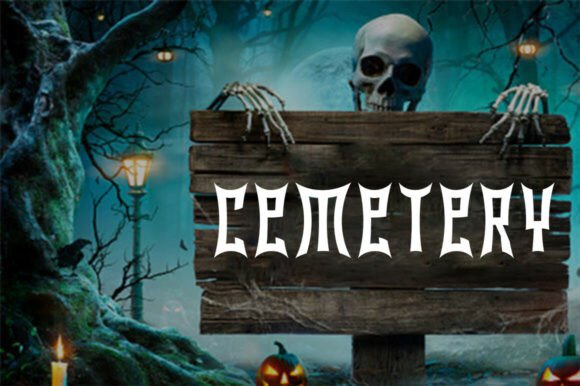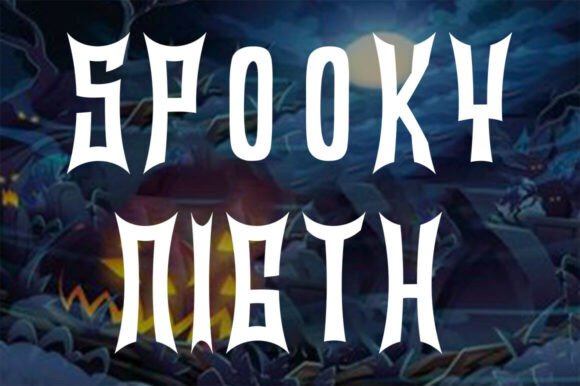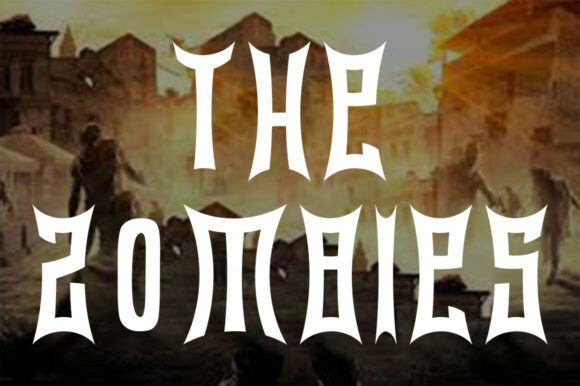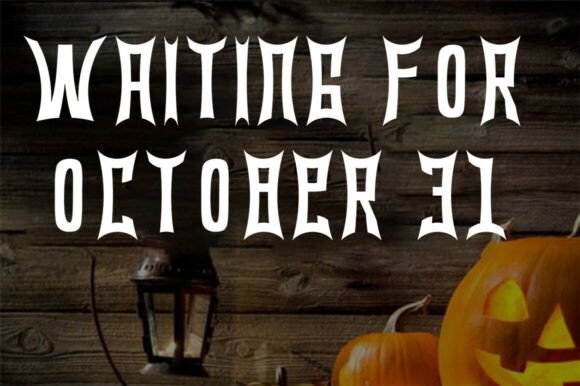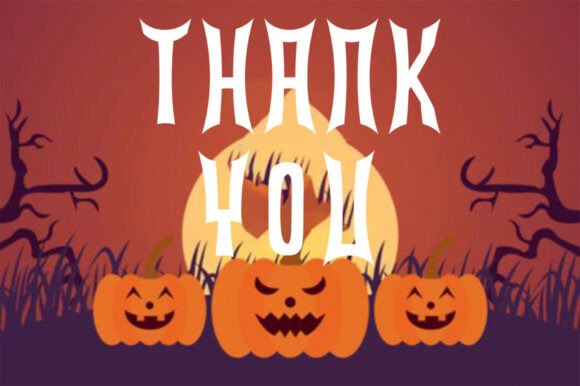
Get Ready for a Spooky Season with the Halloween Excitement Font
You know that feeling when you’re browsing through design inspiration boards, and you stumble upon the perfect font to match your next creative project? For many designers, that moment is especially magical during the Halloween season. The air is crisp, the pumpkins are carved, and the spooky atmosphere is in full swing. That’s when you need a font that can bring your designs to life and capture the essence of the season – enter the Halloween Excitement Font.
This bold, spiky, and dramatic display font is designed to bring the thrill of Halloween to your seasonal creations. With its sharp serifs and eerie handwritten style, it’s the perfect choice for designers who want to add a touch of spooky sophistication to their designs. Whether you’re creating posters, party invites, or haunted house signs, the Halloween Excitement Font is sure to stand out in any creepy setting.
Halloween Excitement Font Key Features
- Font Family: A unique, hand-drawn font designed to evoke the spirit of Halloween.
- Unique Characteristics: Features intricate, hand-crafted details and a bold, playful feel, making it perfect for Halloween-themed designs, invitations, and decorations.
Halloween Excitement Font Review
First off, I want to say that this font is a lot of fun to use. The playful, spooky vibe it brings to any design project is infectious. ✨ I love the creative and whimsical feel it gives to text, making it perfect for Halloween-themed designs, party invitations, or even spooky social media posts. The font’s bold and eye-catching style is sure to grab attention and set the tone for a fun and exciting experience.
Now, let’s talk about the limitations. ⚠️ While the font is great for a specific niche, it may not be the best choice for more formal or professional projects. The playful style may come across as too casual or immature for certain audiences. Additionally, the font may not be as versatile as some other options, as it’s specifically designed for Halloween-themed projects.
- Playful and whimsical style
- Perfect for Halloween-themed designs and projects
- Eye-catching and bold
- Fun and creative vibe
- May not be suitable for formal or professional projects
- May come across as too casual or immature for certain audiences
- Not as versatile as other font options
Halloween Excitement Font: A Practical Application Guide
For maximum impact, use the Halloween Excitement Font in bold or italics, and combine it with other spooky graphics and effects.
Experiment with different font sizes and colors to create a dramatic and attention-grabbing design.
The Halloween Excitement Font is perfect for:
Halloween invitations and party materials
Spooky-themed social media posts and ads
Alternatives to Halloween Excitement Font
Creepy Carnival
Creepy Carnival is a fun and spooky font perfect for Halloween designs. It’s great for creating a sense of nostalgia and can be used for titles, headings, and even entire paragraphs. When to use: Create a creepy atmosphere, especially for carnival-themed Halloween designs.
Comparison to Halloween Excitement Font: While both fonts are spooky and fun, Creepy Carnival has a more nostalgic and carnival-like feel, whereas Halloween Excitement Font is more energetic and bold.
Monster Mash
Monster Mash is a playful and monstrous font ideal for Halloween designs that require a mix of fun and fear. It’s great for titles, headings, and creating a sense of excitement. When to use: Create a playful atmosphere, especially for monster-themed Halloween designs.